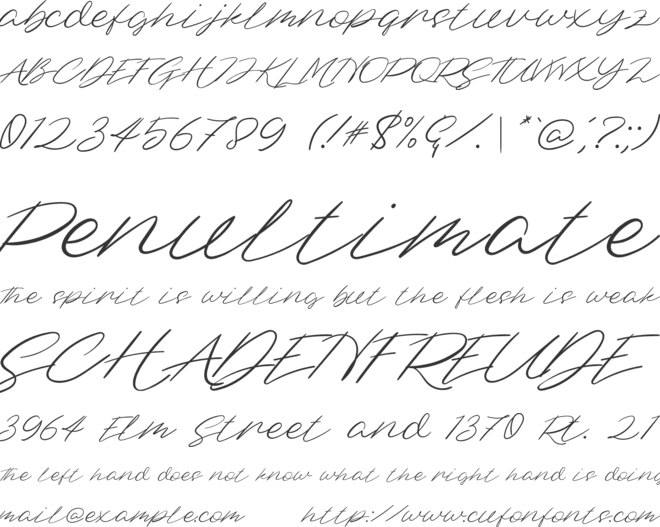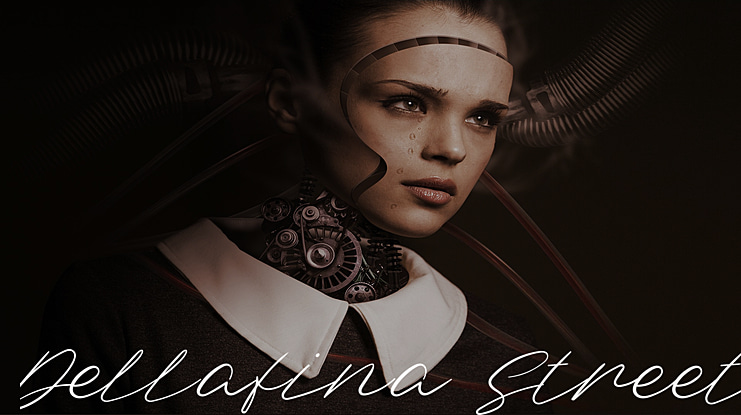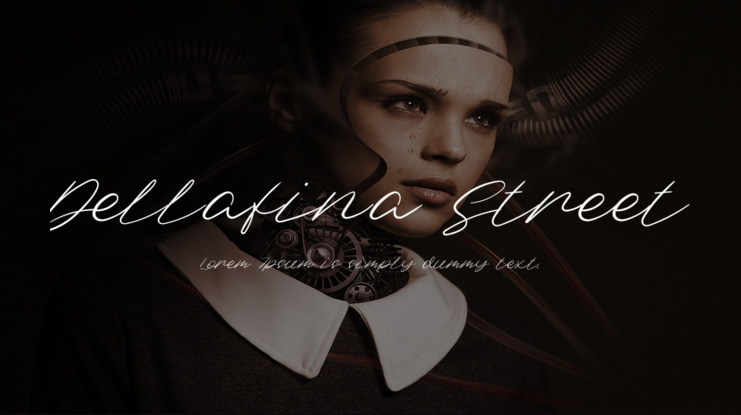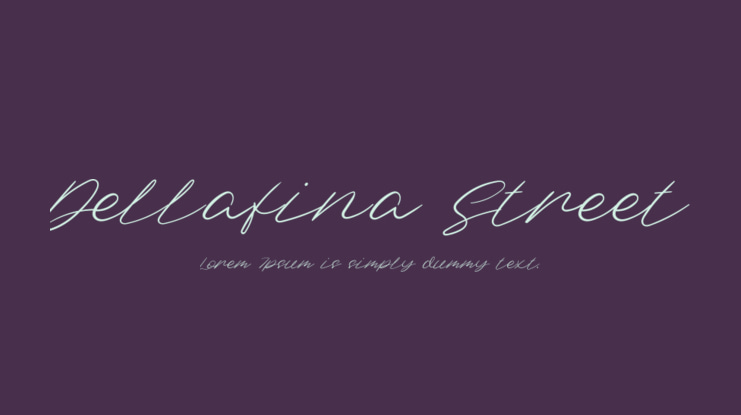
Dellafina Street Font Family
Dellafina Street script font. A collection of letters and numbers suitable your projects also great for Logotype, Branding Design, Logo Design, Digital Lettering Arts, T-Shirt/Apparel, Poster, Magazine, Signs, Advertising Design, and any design needs.